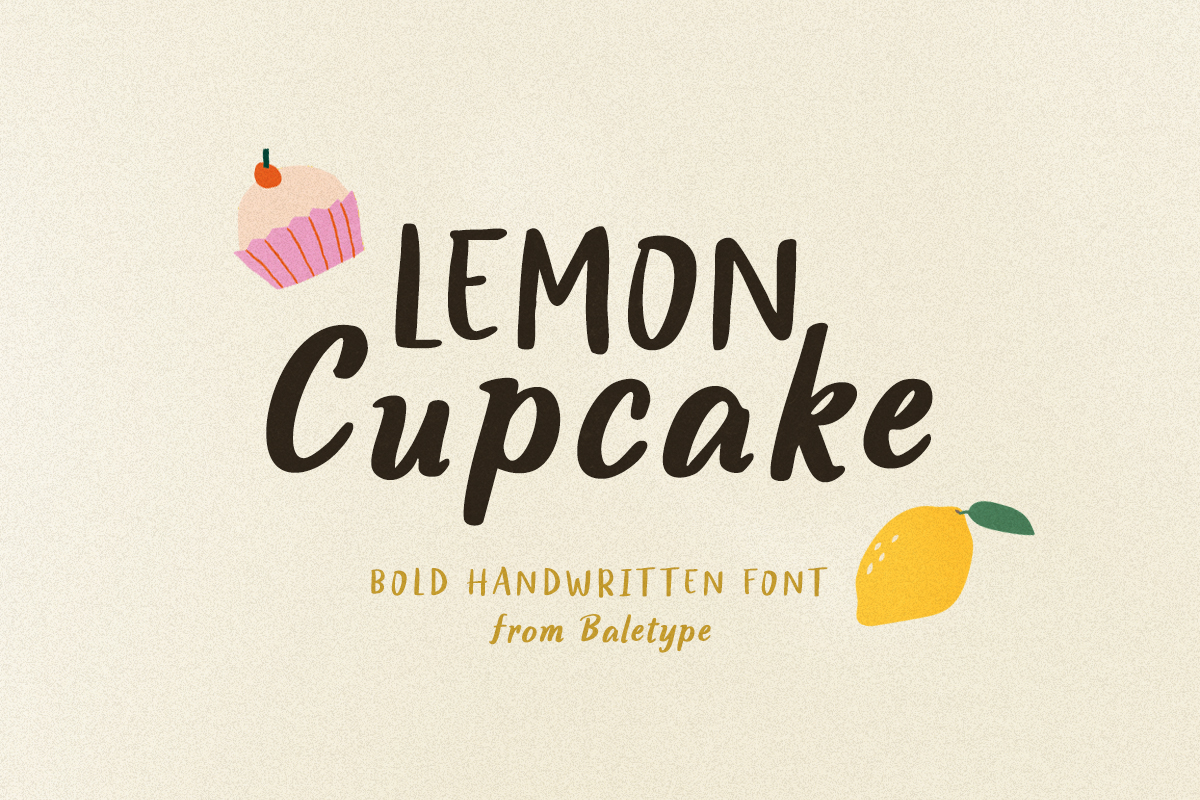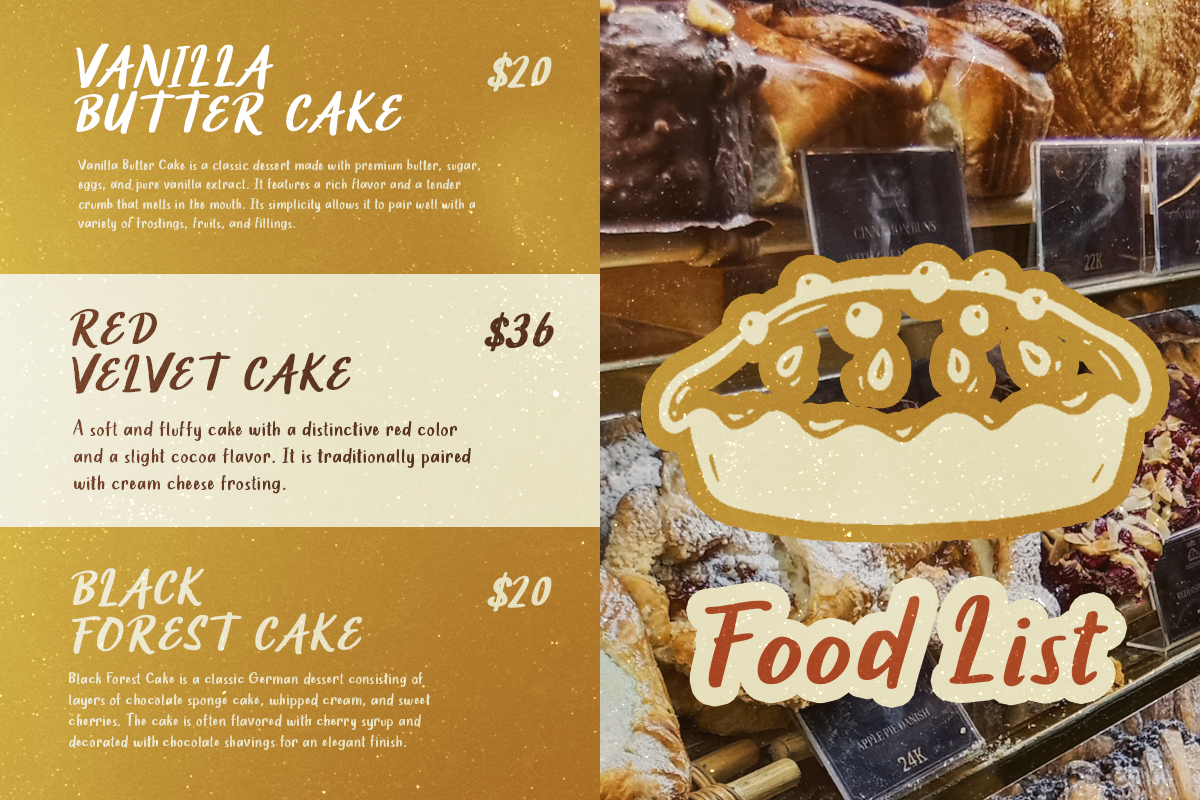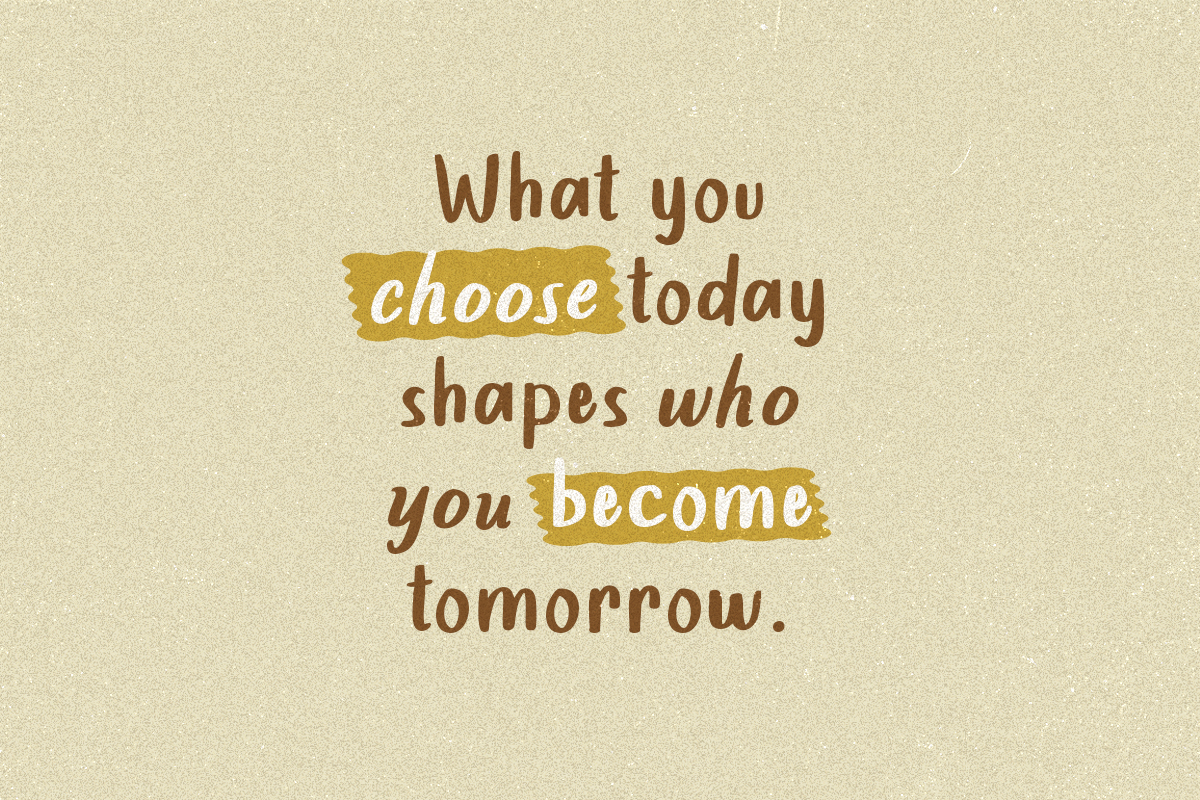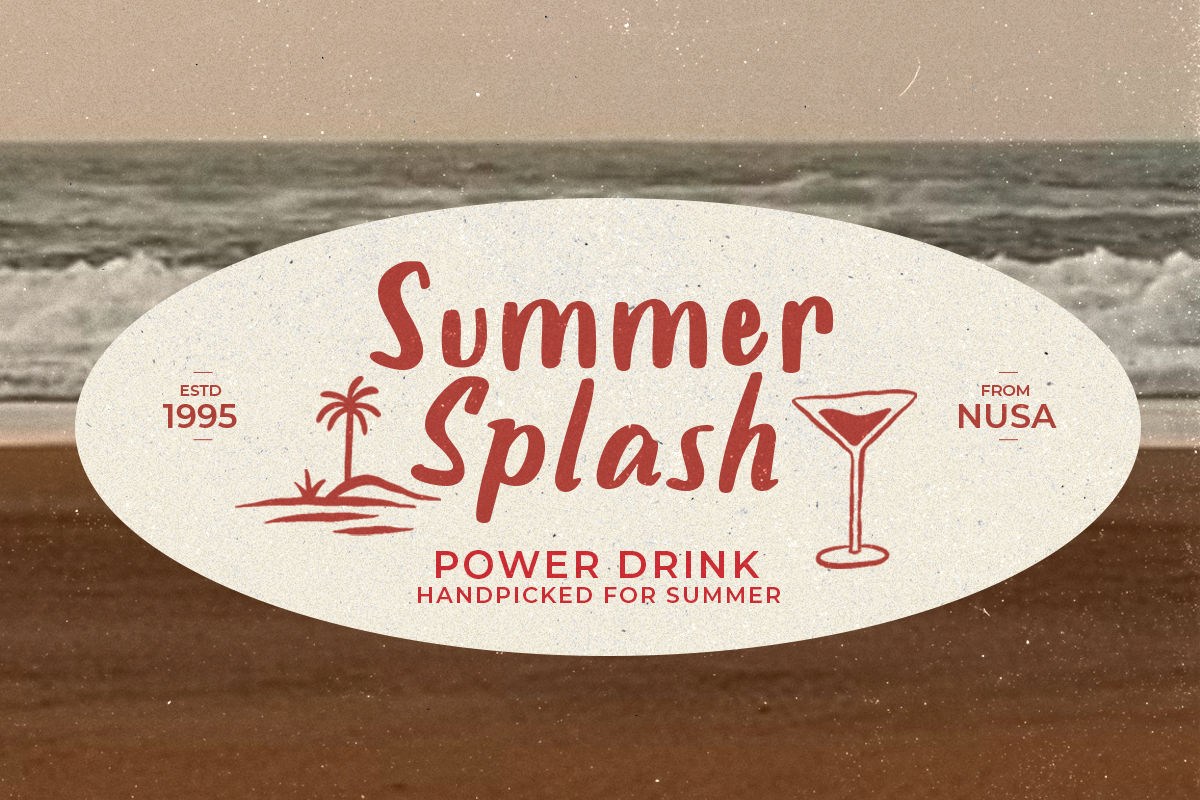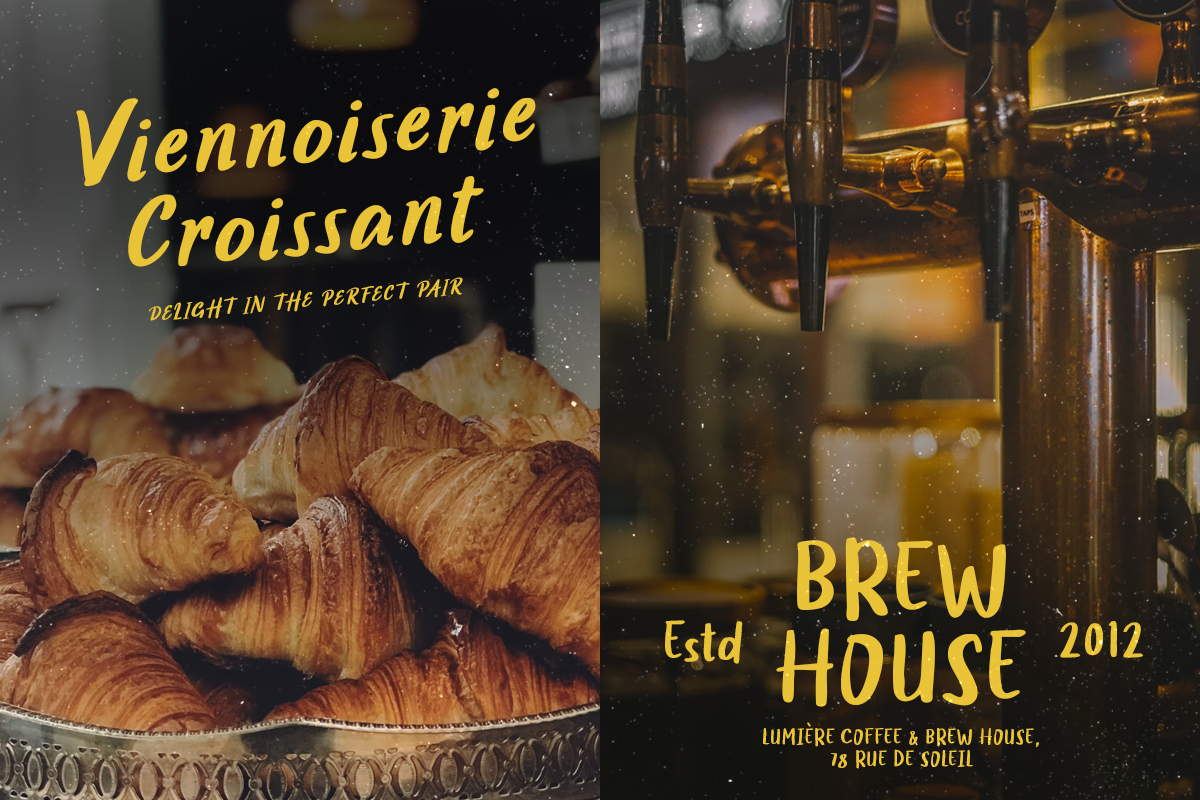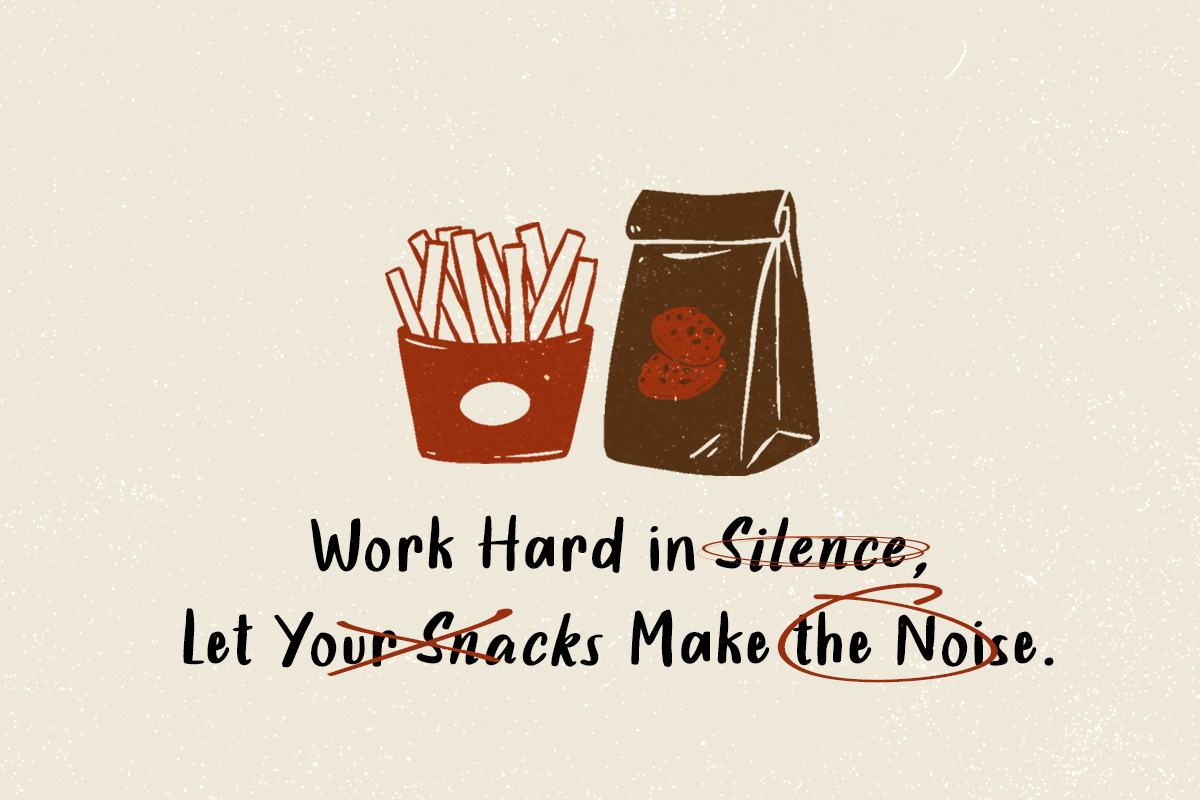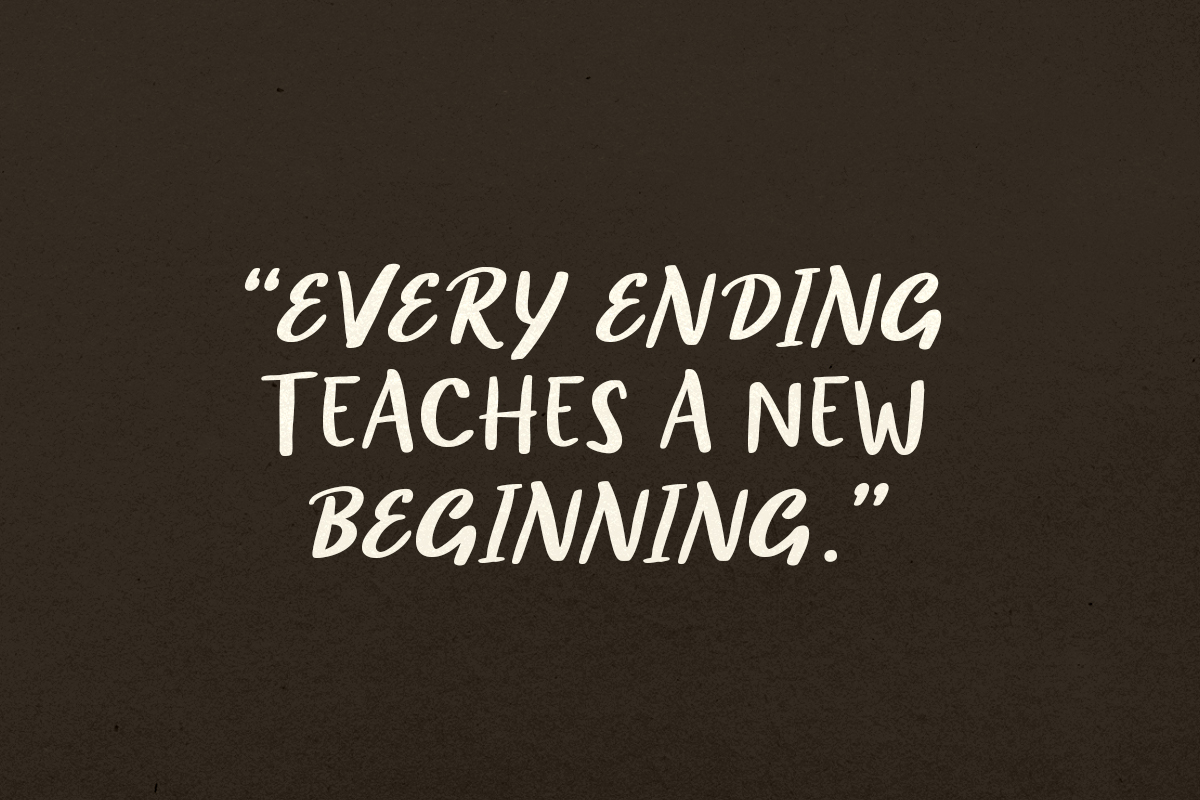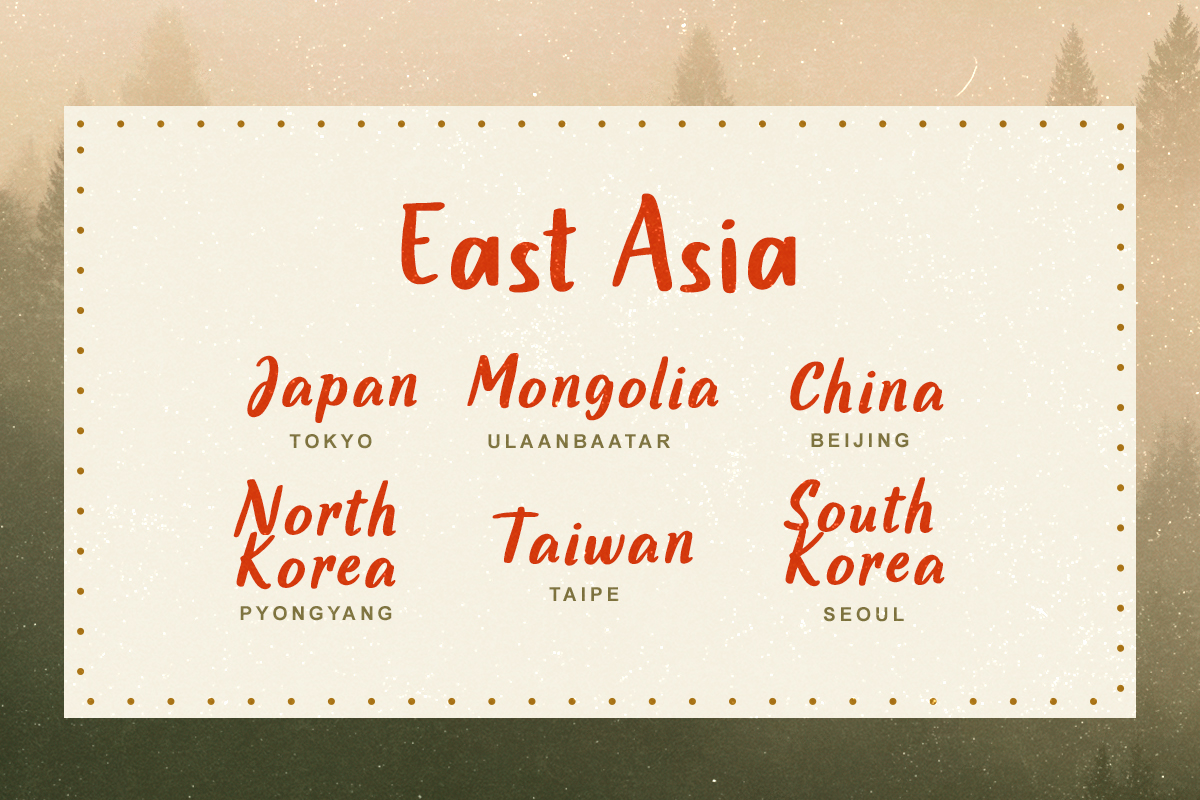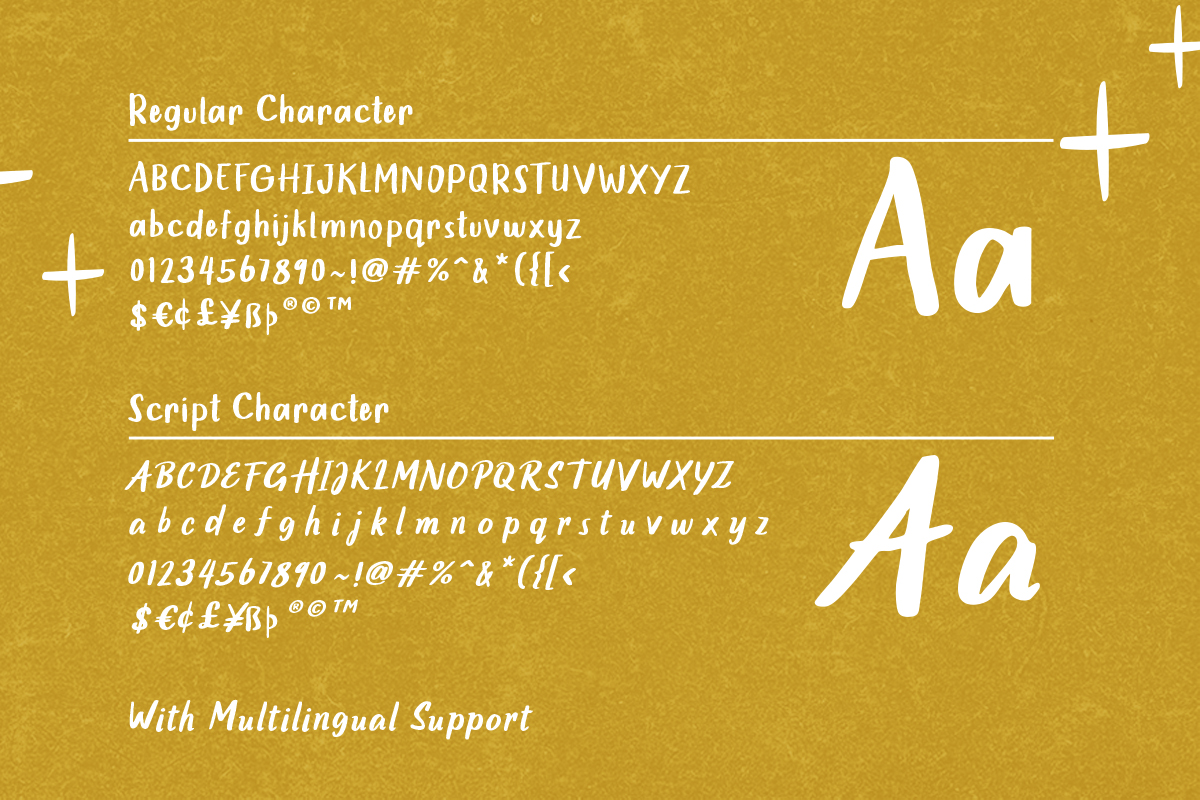
Lemon Cupcake is a handwritten font with bold and soft looks. You can use this font for any purposes such as poster, logo, invitation card, or even quotes. With italic that already included, you can use both regular and italic to make your project looks good and stunning. This font also support multi language.
Lemon Cupcake – Bold Handwritten
Lemon Cupcake is a handwritten font with bold and soft looks.